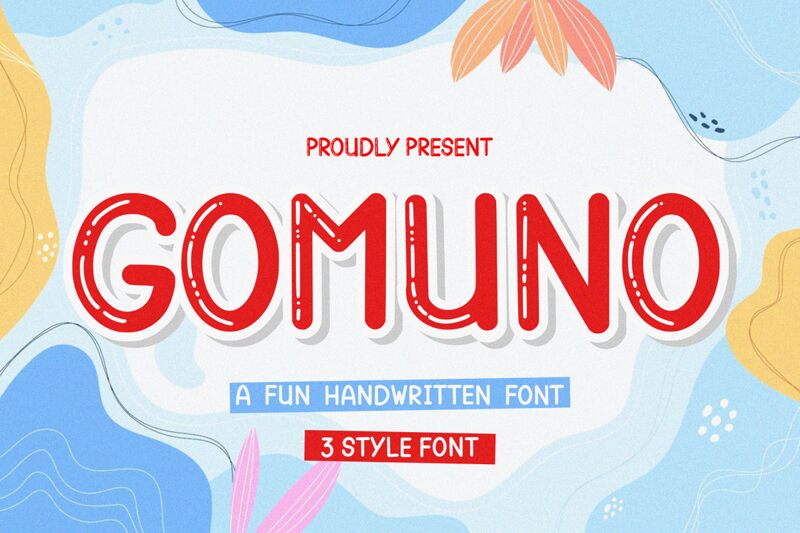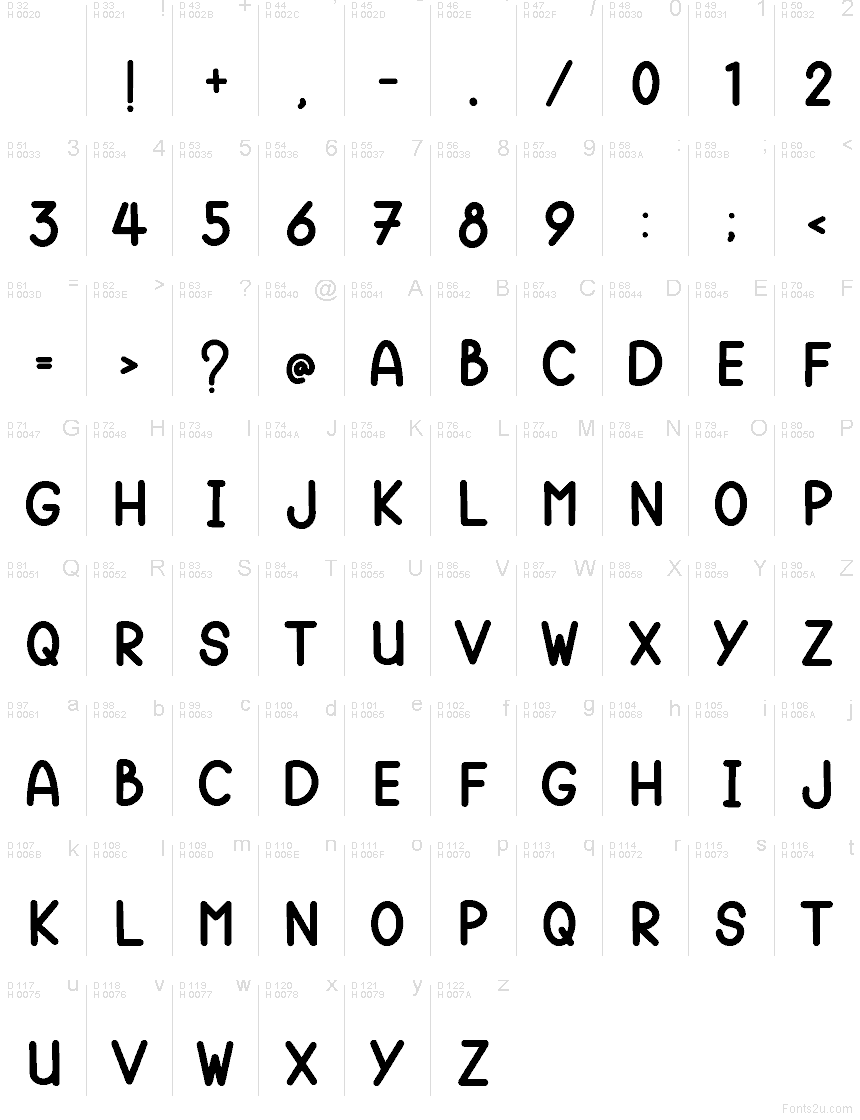
Gomuno Basic
Gomuno Basic font by Essentials Studio is a free comic display typeface that captures the looseness of hand lettering without turning messy. Its rounded strokes, slightly squished silhouettes, and inky, marker-like curves feel playful yet controlled, so lines of text stay readable even when things get loud and bouncy. The letters sit close enough to feel friendly and energetic, but with just enough breathing room to avoid clutter in longer titles.
Using Gomuno Basic, you can give kids’ book covers, classroom posters, game UIs, birthday invitations, YouTube thumbnails, and comic-style logos a warm, goofy charm that still looks intentional. This free font shines at larger sizes where its chunky, soft edges really pop; pair it with a clean geometric sans for body text to keep your layouts fun but grounded.